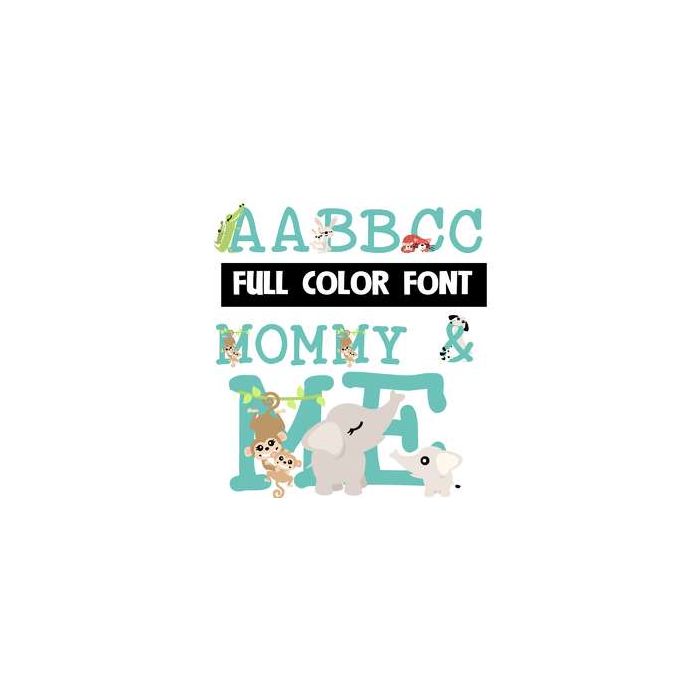
This full-color font features animal moms and babies on the uppercase, numbers, and some symbols. This font works best for titles, displays, posters and more. Please note color fonts will show as black in non compatible programs. This font type is compatible with Silhouette Studio.